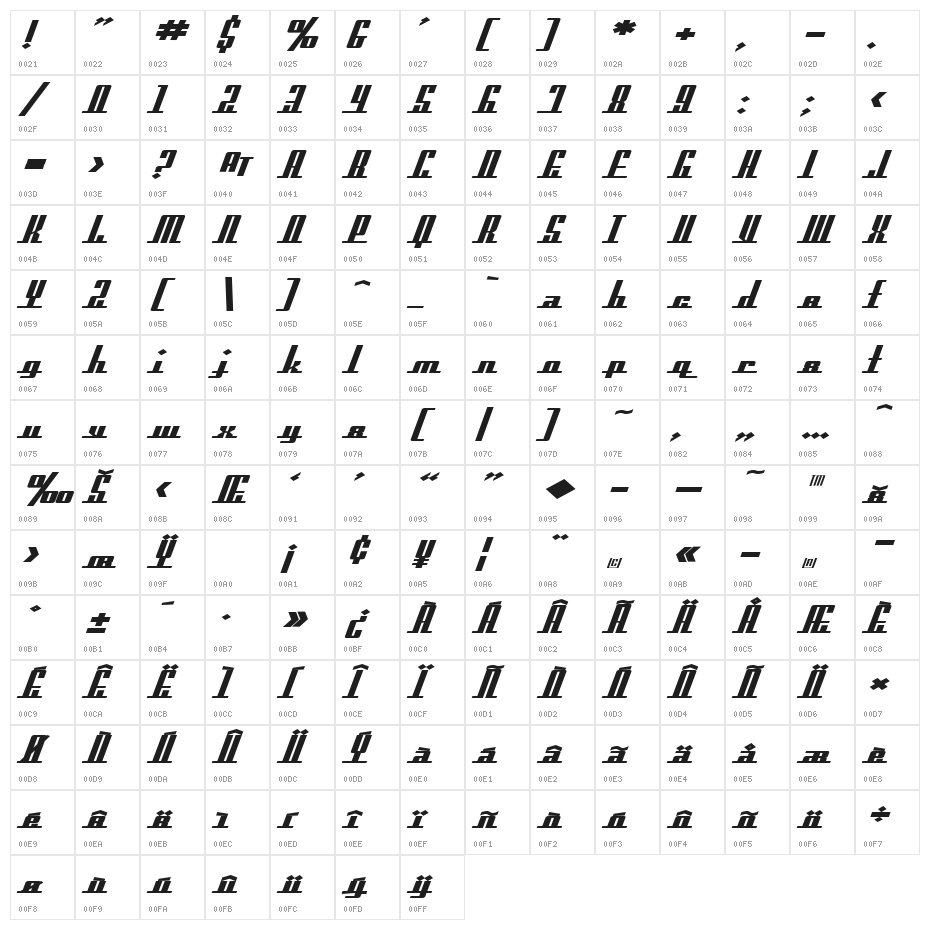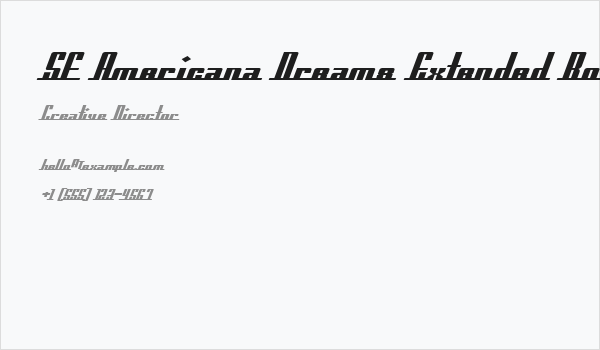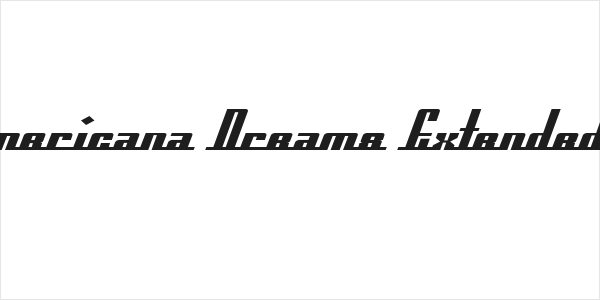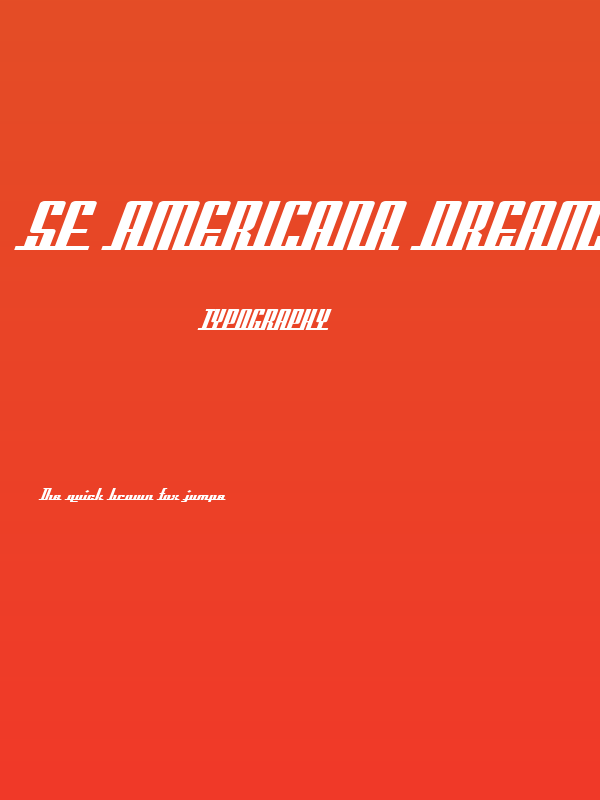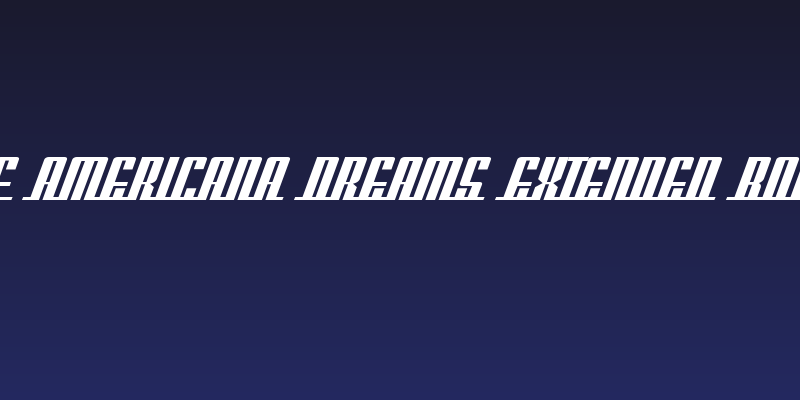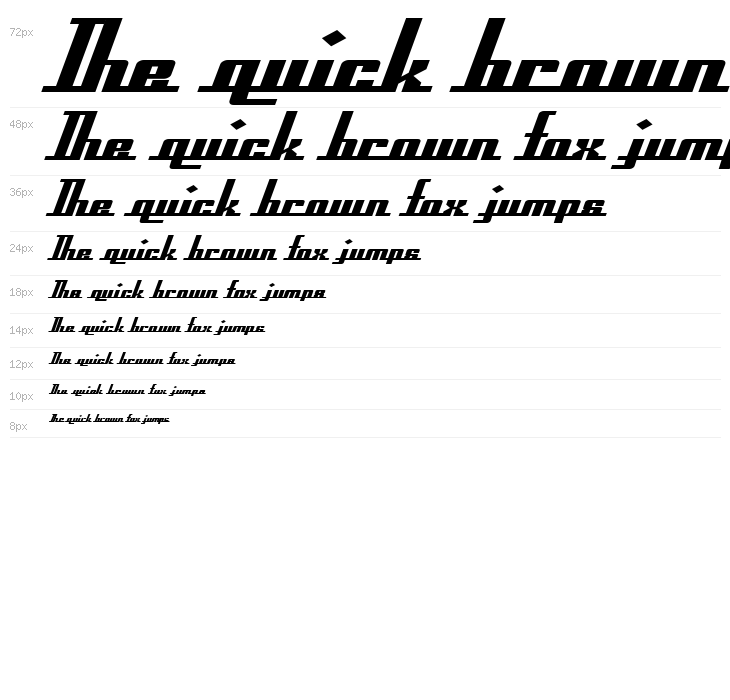
SF Americana Dreams Extended Bold Font
SF Americana Dreams Extended Bold Description
This font features a bold, extended style with a distinct slant, giving it a dynamic and forward-moving appearance. The characters are elongated with sharp angles and clean lines, creating a sense of speed and modernity. The uppercase letters are particularly striking, with a consistent height and width that enhances readability. The lowercase letters maintain the same angular design, ensuring a cohesive look across all text. Numbers and special characters are designed with the same boldness and angularity, making them stand out effectively. This font is ideal for projects that require a strong, impactful presence.
| Proposed Projects | Ideal for sports branding, automotive advertisements, dynamic posters, and modern logos. |